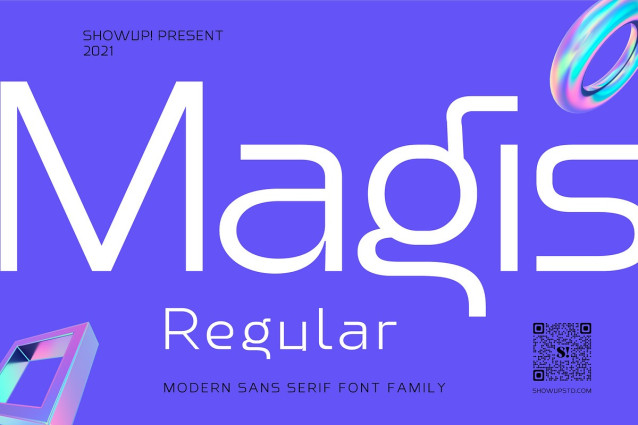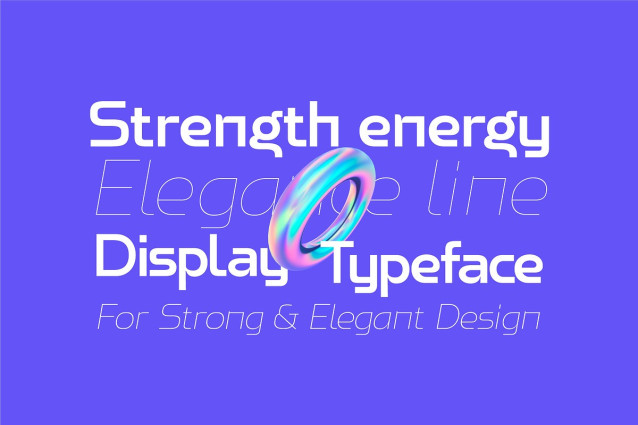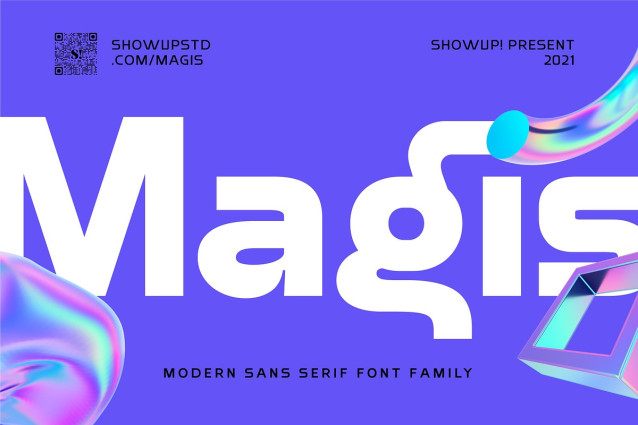
Magis Font Family
Magis Font Family is a modern sans serif with a geometric touch. It comes in 18 weights, 9 uprights, matching italics, and variable font. Magis® bringing energy and making it suitable for modern design.
Designed with powerful OpenType features in mind. Each weight includes extended language support (+ Cyrillic), arrows, ligatures, and more. Perfectly suited for graphic design and any display use. It could easily work for web, signage, corporate as well as editorial design.